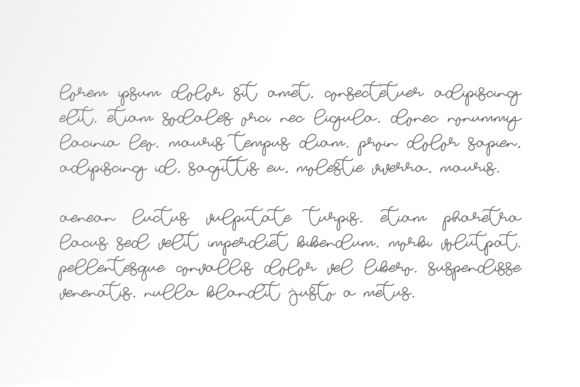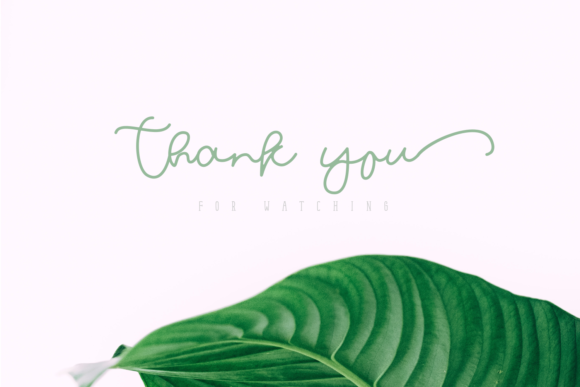
Introduction to Sentausa Font
Remember that moment when you’re working on a creative project and the perfect font just slips through your fingers? You envision a beautiful design with elegant lettering, but the right font seems elusive. This is where the Sentausa Font comes in – a stylish and delicate font that’s about to become your new go-to design resource.
With its clean, thin, and smooth vibe, the Sentausa Font is sure to elevate any design you add it to. Whether you’re working on a logo, brochure, or social media graphics, this high-quality font is a valuable addition to your design arsenal. And the best part? It’s free to download and comes with a transparent background, making it easy to use in any design project.
As a designer, you know how much of a difference the right font can make. The Sentausa Font is PUA encoded, giving you easy access to all of its glyphs and swashes. This means you can unleash your creativity and take your designs to the next level with this versatile and beautiful font.
Key Features of Sentausa Font
- High-quality typography designed for creative projects, offering a unique aesthetic.
- Includes a transparent background, allowing for seamless integration into various design elements.
- Designed with a high resolution of 300 DPI, ensuring crisp and clear typography.
- Comes in a range of sizes, from 12pt to 72pt, catering to various design needs and creative projects.
- Unique characteristics, such as intricate details and elegant lines, set it apart from other fonts in its class.
Honest Review: Sentausa Font
I recently stumbled upon the Sentausa Font, a beautiful, free design resource that has been a game-changer for my creative projects. The high quality of this font has truly elevated my work, making it a valuable addition to my design arsenal.
- What works well: ✨ The Sentausa Font has a sleek, modern aesthetic that works perfectly for a variety of design styles. I’ve used it for both personal and professional projects, and it always looks great.
- What works well: ✨ The transparent background option allows for seamless integration into any design, making it a versatile choice for creative projects.
- ⚠️ The font is limited to a single weight, which may not be suitable for all design applications.
- ⚠️ The font does not include a comprehensive character set, which may require additional fonts for certain languages.
Overall, I’m thoroughly impressed with the Sentausa Font. Its high quality, modern aesthetic, and free download make it an excellent choice for designers. While there are some limitations, I believe the benefits far outweigh the drawbacks.
The Sentausa Font is perfect for designers, writers, and artists who need a high-quality, free download font for their creative projects. Use it for presentations, documents, posters, and other design projects where a professional-looking font is required.